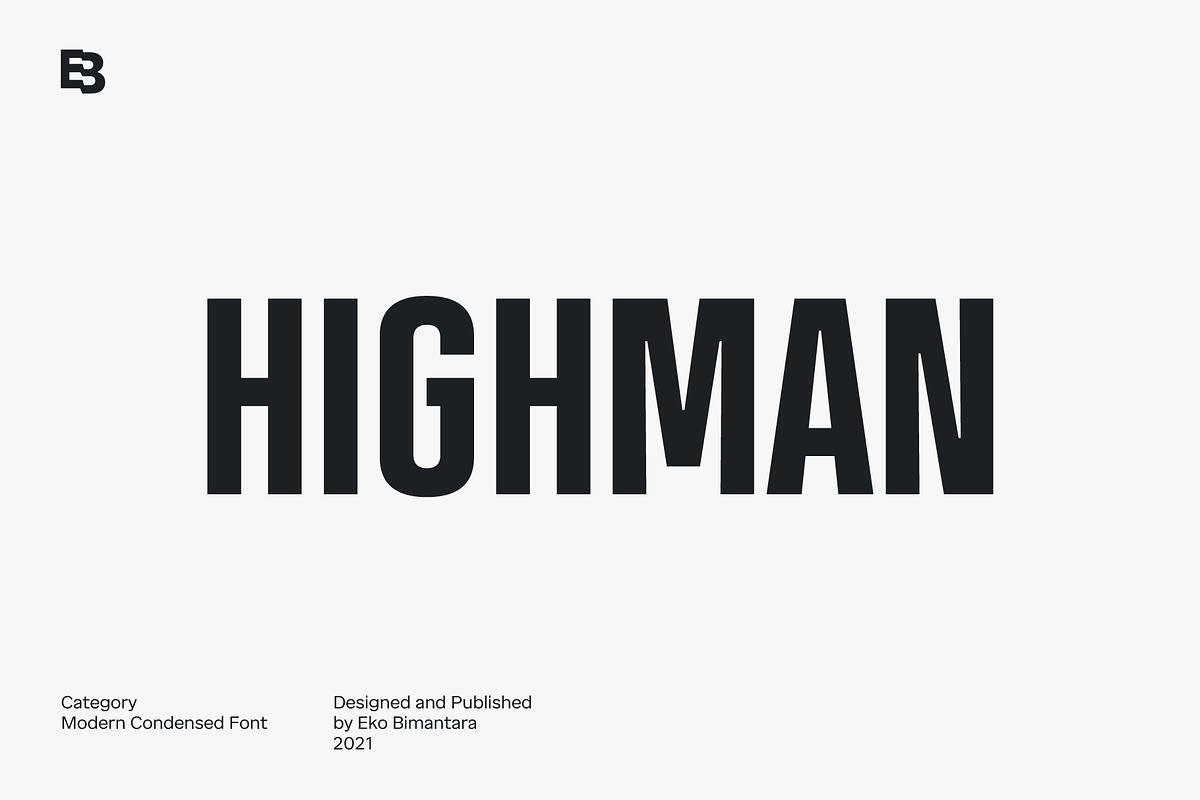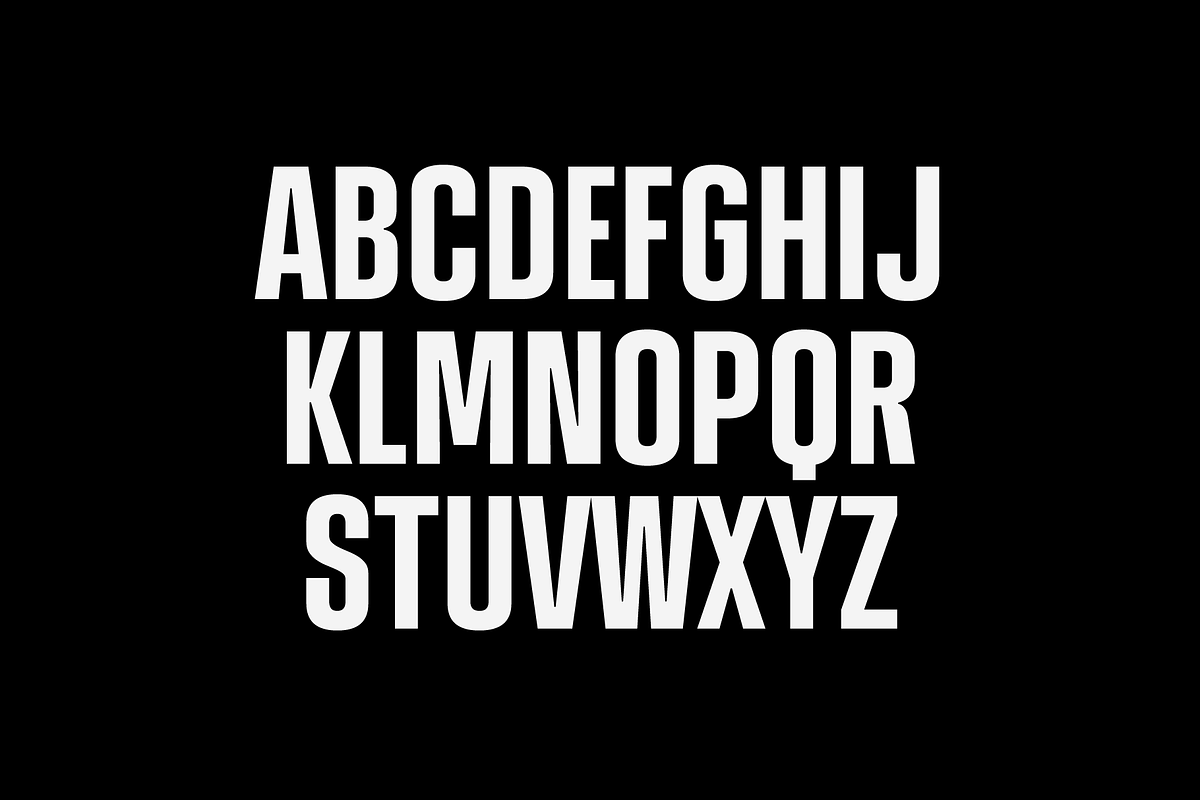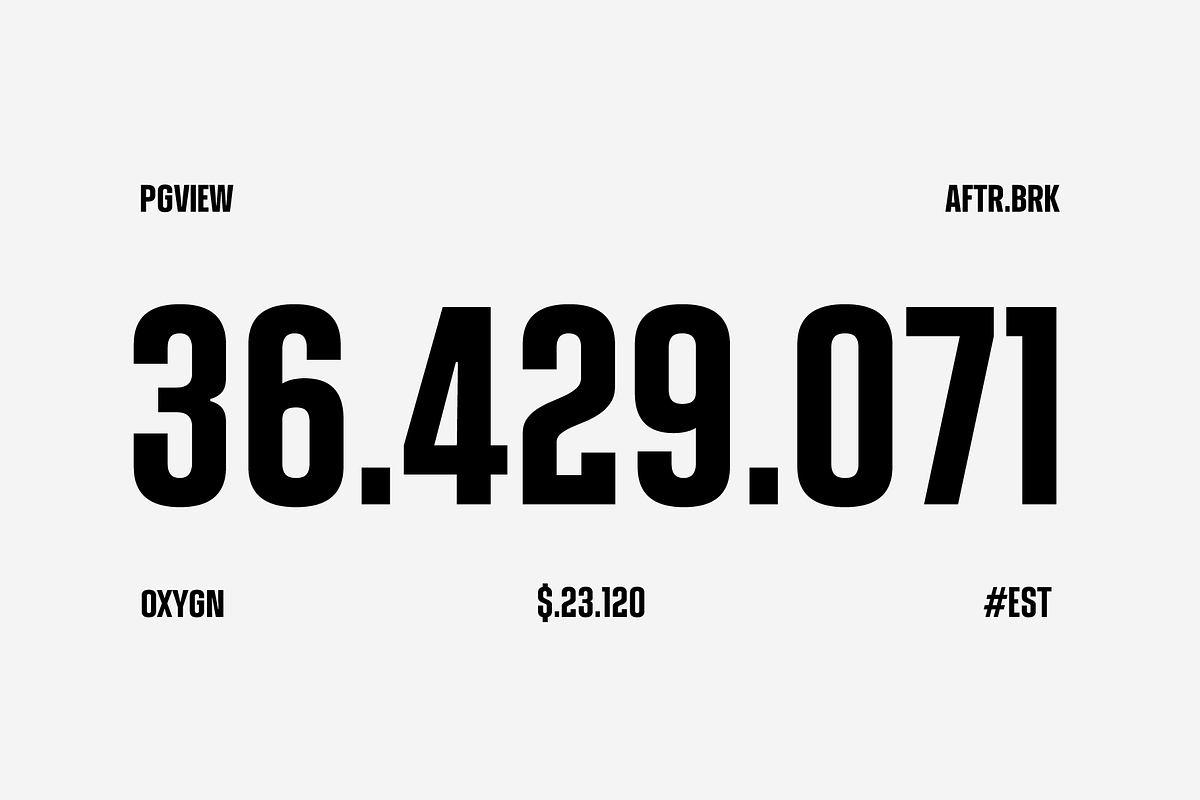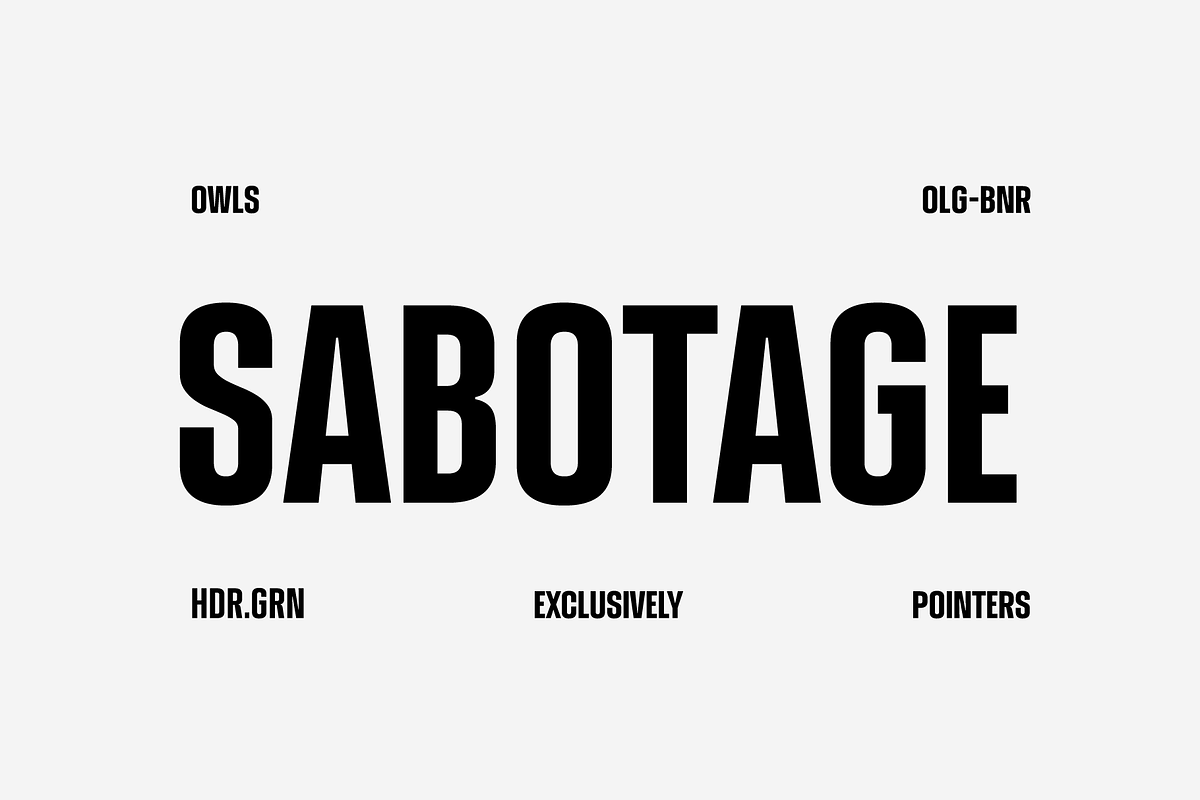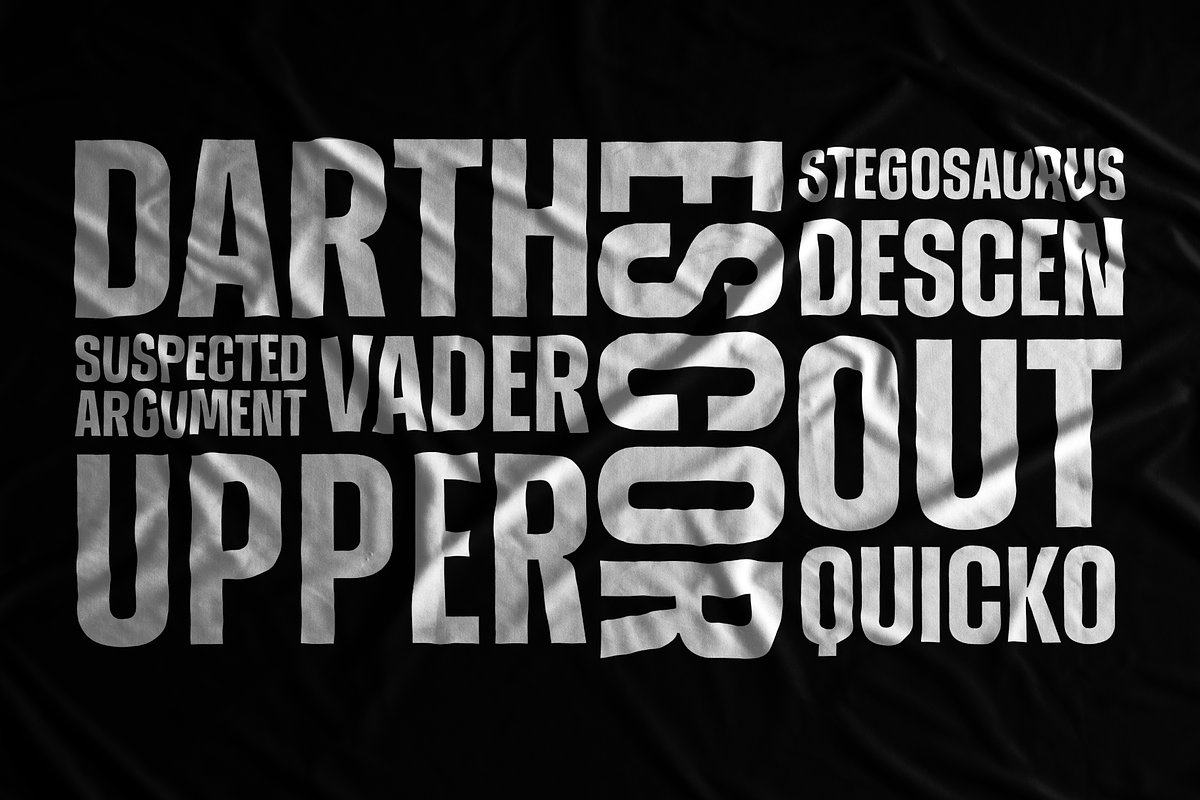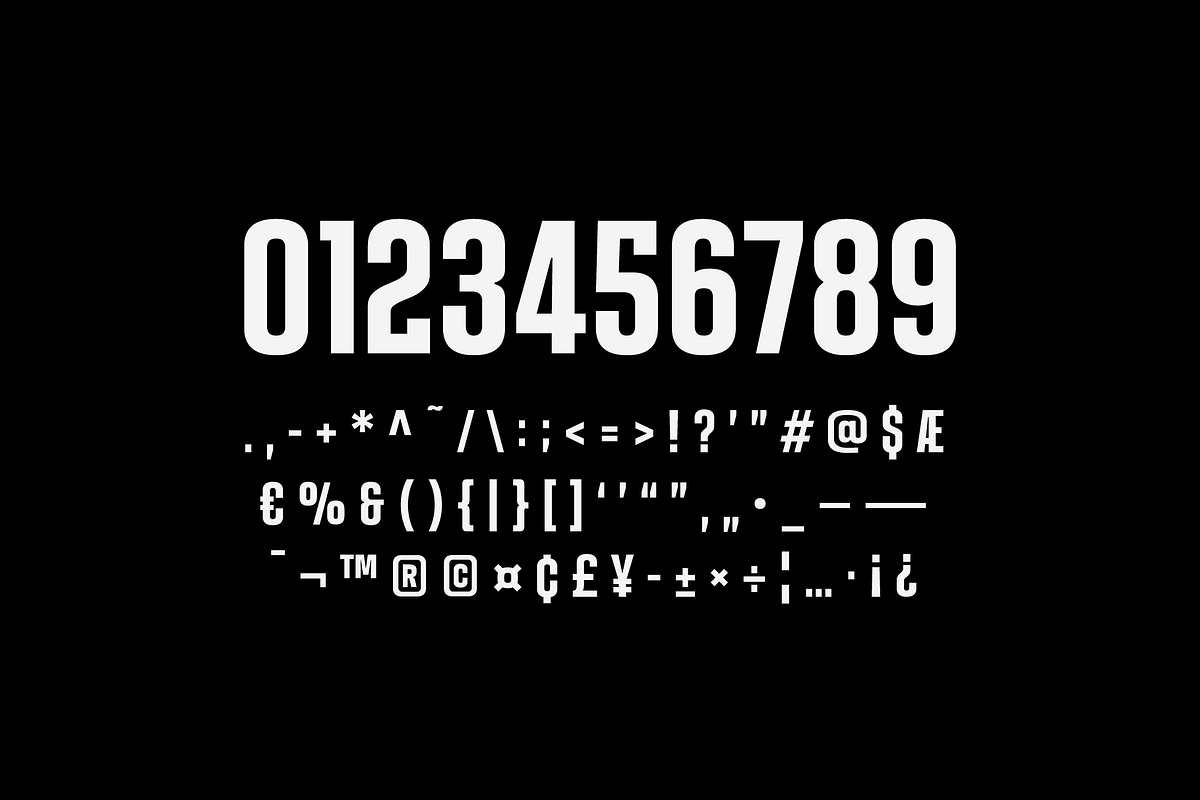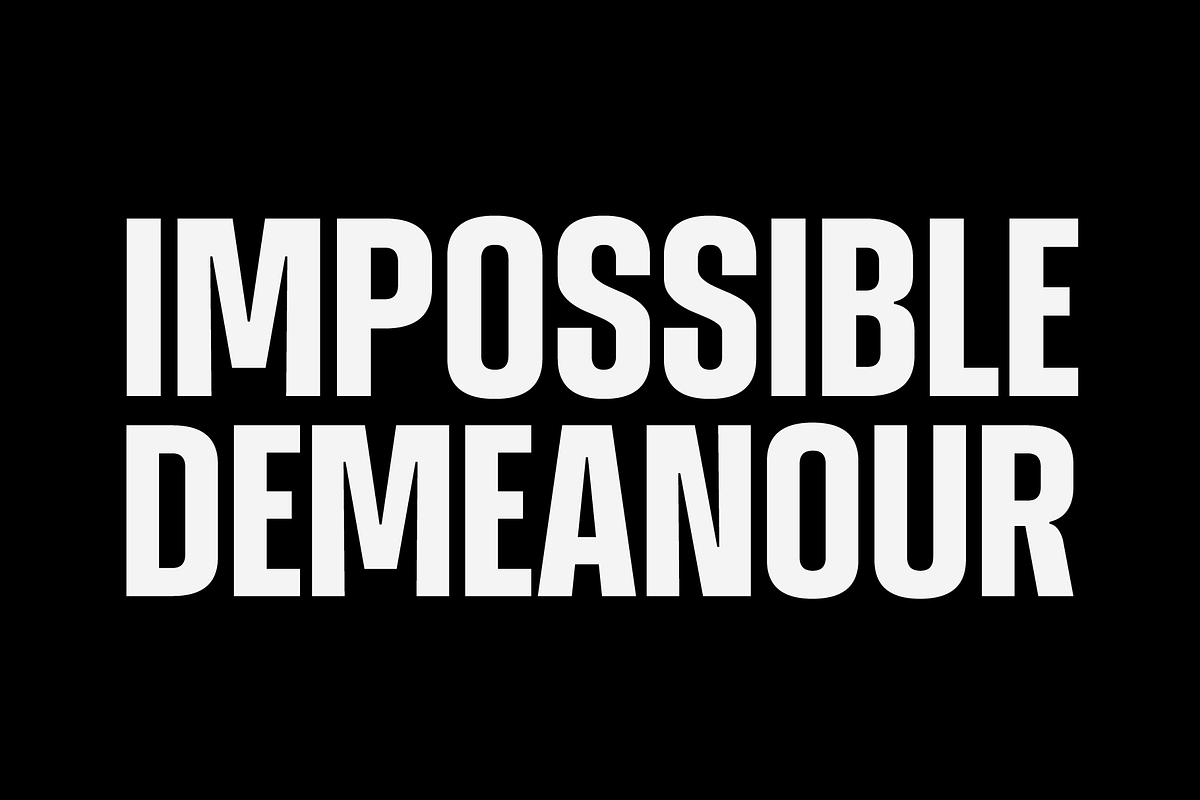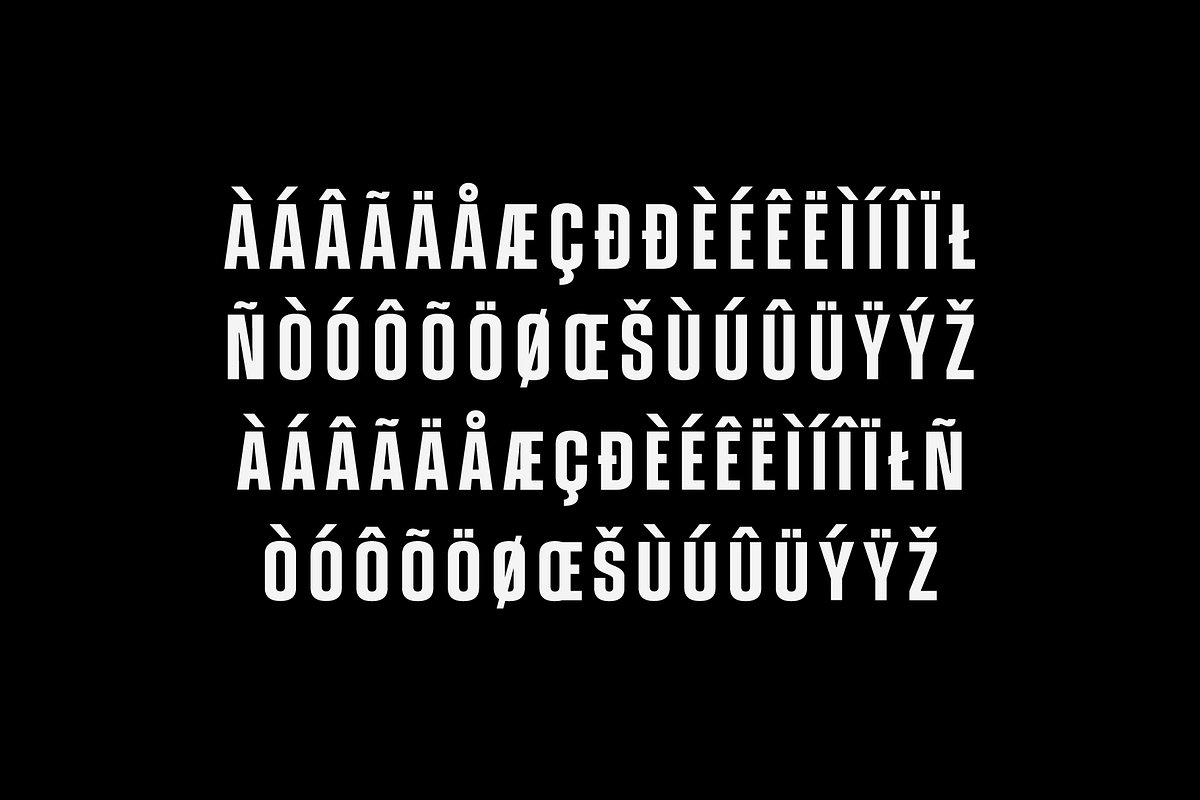
Highman; Bold CondensedFont
Highman is a bold condensed display font. Its contain all caps letter yet there's different height between the uppercase and lowercase. Fit for titling, headers, display, stacking and grid layout.